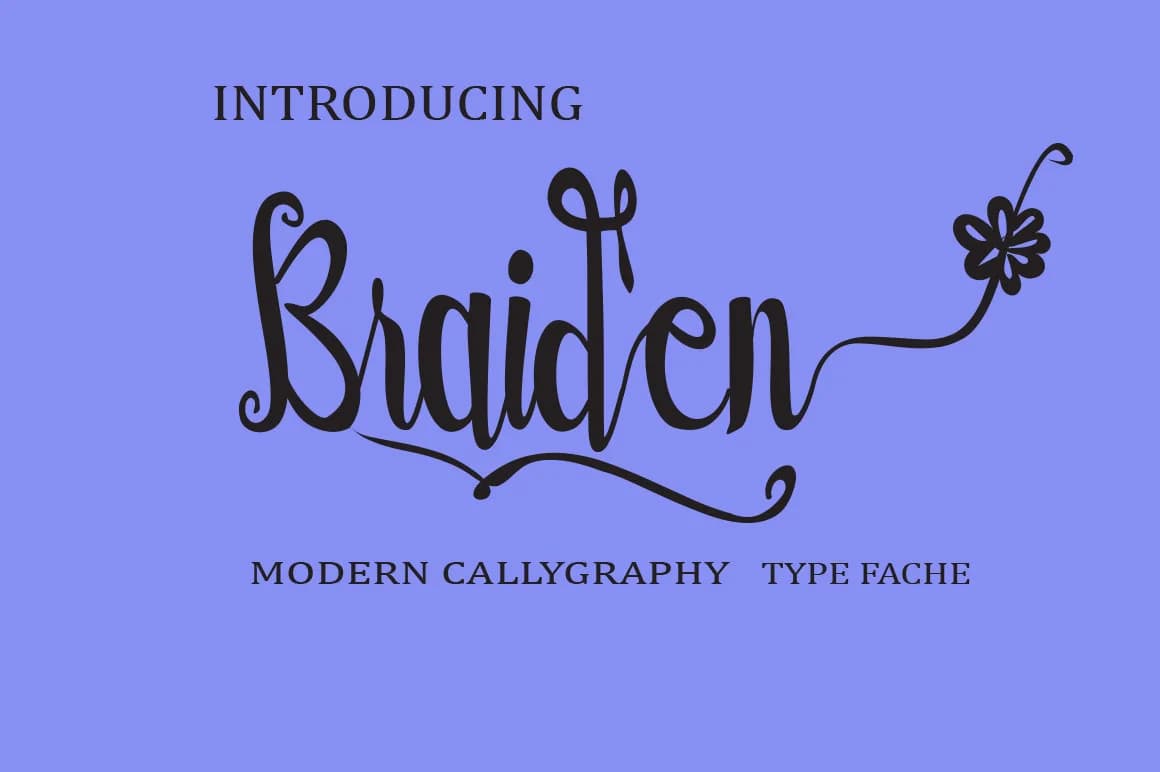
Braiden by AsaharStudio is a hand-drawn calligraphy font that captures the fluid elegance of contemporary lettering. This script typeface brings authentic handwriting characteristics to digital design, making it ideal for projects that demand a personal, artisanal touch and refined visual presence.
The font works beautifully for luxury wedding invitation designs where flowing letterforms convey sophistication and romance. It's equally suited to crafting greeting cards that stand out with genuine character, or developing custom monogram designs for boutique branding purposes. Designers working on packaging for small-batch skincare products or artisanal food labels will find Braiden's curves and personality add significant visual appeal. The typeface also shines in creating decorative hand-lettered signage for retail environments or personalized gift tags that feel intentionally crafted rather than mass-produced.
Braiden's hand-created construction ensures each stroke feels organic and carefully rendered, distinguishing it from computer-generated calligraphy fonts. Whether you're designing formal stationery suites, creating Instagram graphics with personality, or developing brand identity materials for creative businesses, this script font delivers both refinement and warmth. Get Braiden on Creative Fabrica and bring hand-lettered sophistication to your next design project.
Braiden Font is a script font that shines as a display or heading face. Pair it with a clean sans-serif or serif font for body text β the contrast creates a clear hierarchy while the two styles stay balanced and easy to read.